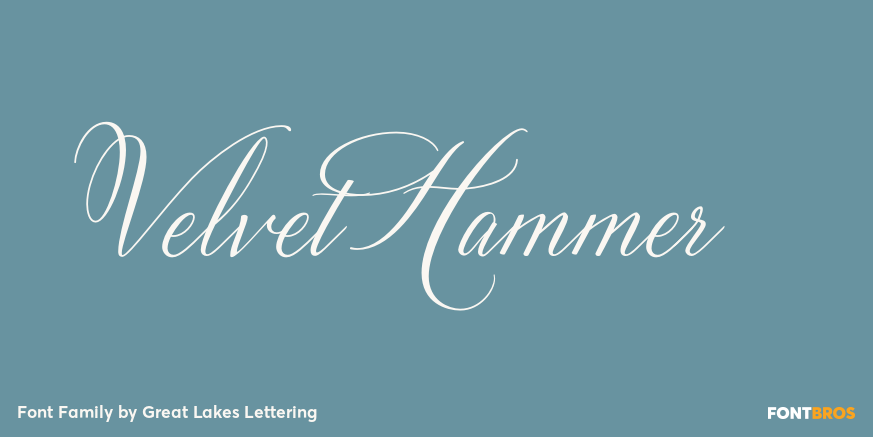
Velvet Hammer
About Velvet Hammer
The Velvet Hammer is a true hand calligraphy font that offers the viewer a sense of strong elegance. This font can be used for all things such as cards, posters, signage, wedding invitations, catalogs, book covers and so much more! The Velvet Hammer\’s…